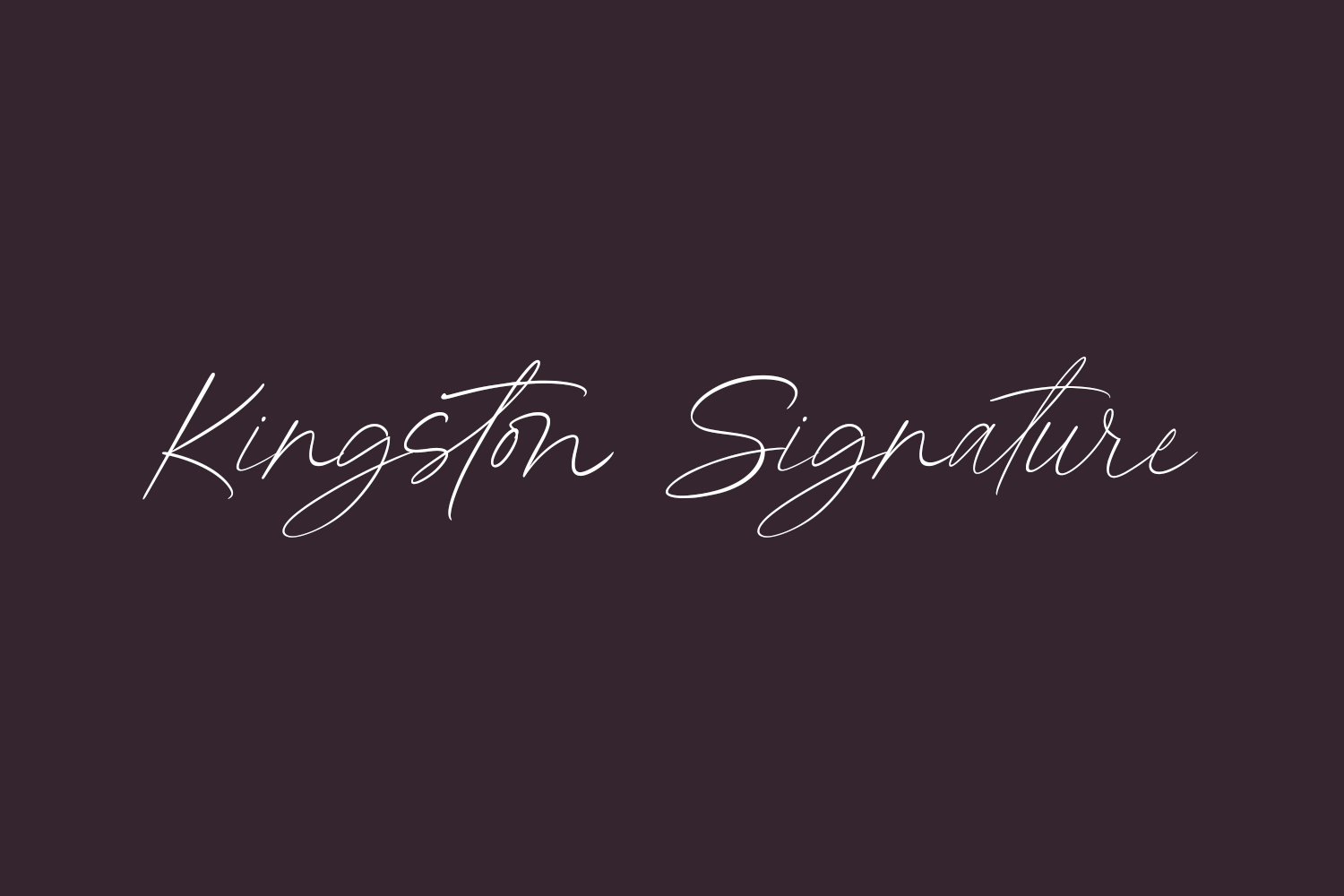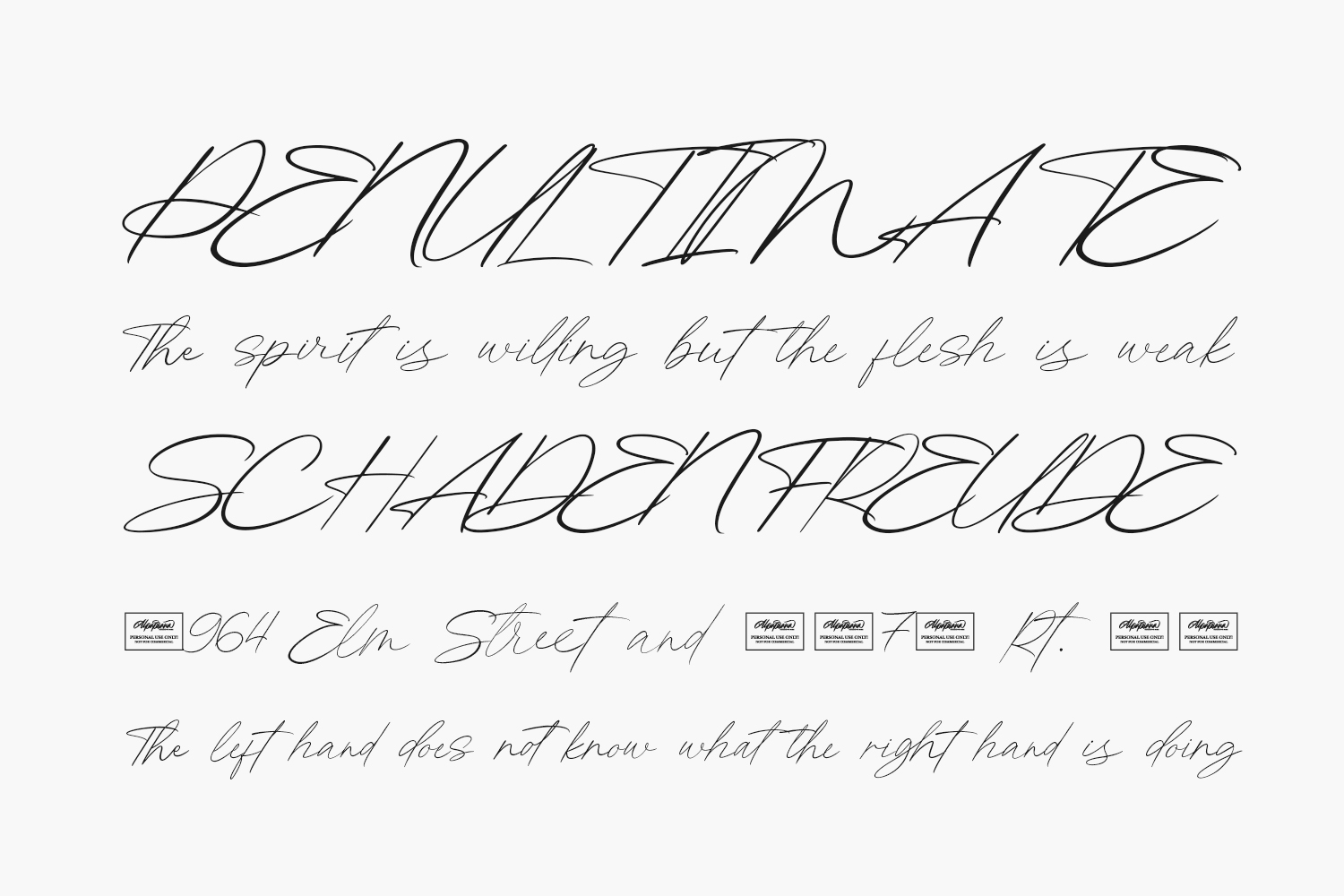
Kingston Signature Free Font is a stunning signature script font with authentic and casual feels. Add this thin, delicate, and beautiful font to any creations that you want to elevate. Kingston Signature Free Font was designed by Alpaprana Studio is a demo and free for personal use only. Please purchase the full version for commercial use.